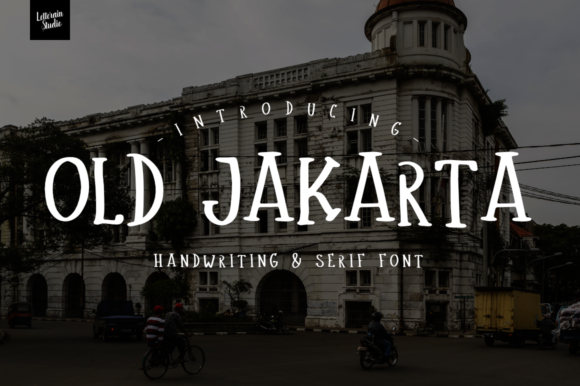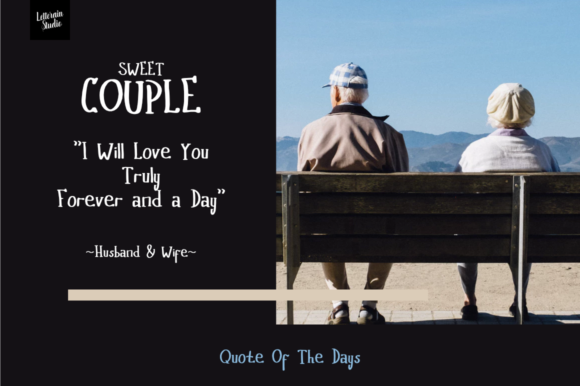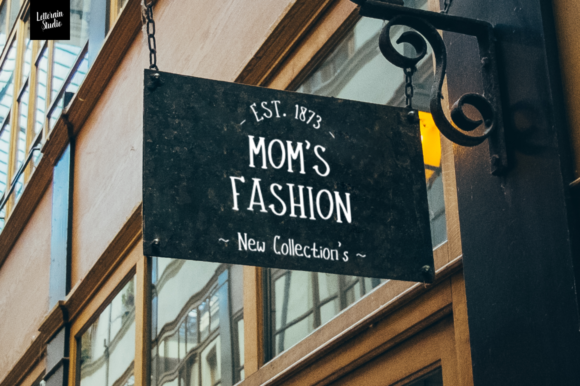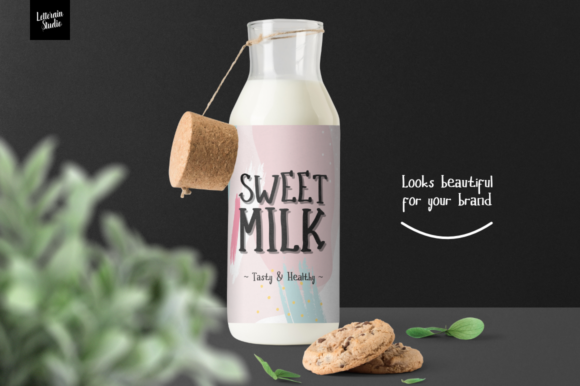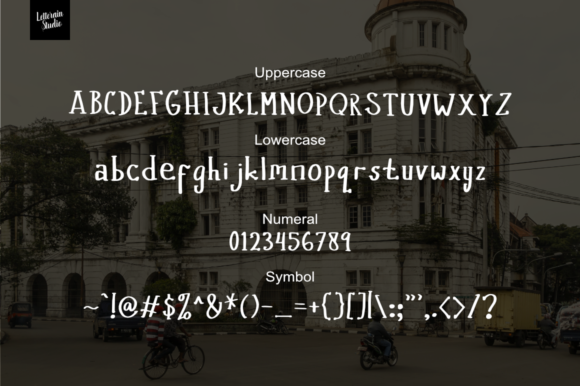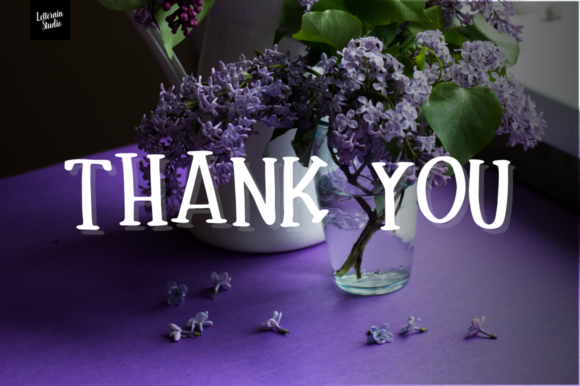
HomeScript FontsOld Jakarta Font Script Fonts Old Jakarta Font FacebookXPinterestWhatsApp Old Jakarta Font Poster 2 Old Jakarta Font Poster 3 Old Jakarta Font Poster 4 Old Jakarta Font Poster 5 Old Jakarta Font Poster 6 About Old Jakarta Font Old Jakarta is a handwritten font that has a classic and unique feel, full of vintage nuances! DOWNLOAD NOW People also explored Dellisa Font Always Font Squeeze of Lime Font Leopard Font Master Book Font Brownis Cakes Font Helsinki Font Baby Honey Font Roster Rospeky Font 376 0 TagsOld Jakarta Font Previous articleStella Alpina FontNext articleDiana Webber Family Font LEAVE A REPLY Cancel reply Comment: Please enter your comment! Name:* Please enter your name here Email:* You have entered an incorrect email address! Please enter your email address here Website: Save my name, email, and website in this browser for the next time I comment. Personal Use Free Anti Personal Use Free Read more about this font Madison Script Personal Use Free Read more about this font Bonifaciy Personal Use Free Read more about this font Kitsor Rauttie Personal Use Free Read more about this font BLOG Transform Your Website: Elevate Your Typography with 7 Best Web Font Generators Are you ready to transform your website's typography from ordinary to extraordinary? Great! Today, we're diving into the world of web font generators, which... To increase your work productivity, choose the most readable fonts. Top 10 Handwritten Fonts That Elevate Your Designs How to Cut Any Font on Cricut: Convert a Font to SVG (Free)